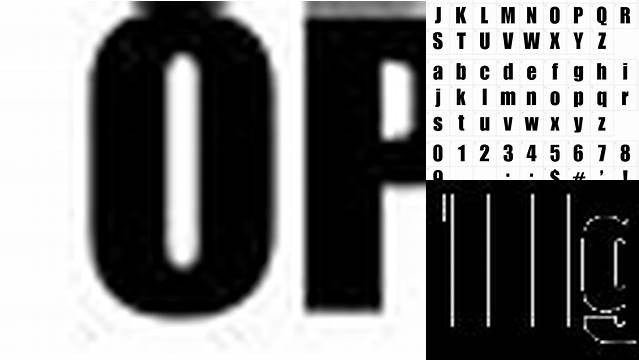
Opti Ignite Font: A Stylish Choice for Your Projects
So, what exactly makes the Opti Ignite font so special? Think sleek, think contemporary, think eye-catching. This font family is designed to make a statement. It's perfect for a variety of projects, from website headers and logos to social media graphics and print materials. Its clean lines and modern aesthetic give it a versatile appeal, making it suitable for both professional and personal use. When you consider the Opti Ignite font free download option, it becomes even more appealing, doesn't it? Getting a high-quality font without spending a dime is always a win. The design of the Opti Ignite font is characterized by its bold, yet refined look. This balance is what allows it to stand out without overwhelming the viewer. Its legibility is another strong point, ensuring that your message is clear and easily understood, even at different sizes. The font is incredibly user-friendly. Whether you're a seasoned designer or just starting out, the Opti Ignite font is easy to integrate into your workflow. With its contemporary design, it can quickly elevate the look and feel of any project. Its popularity stems from its ability to blend modern and classic elements, making it a timeless choice. Furthermore, the free download option makes it accessible to a broader audience, allowing more people to experience its design benefits. Many designers appreciate the font's flexibility and its ability to work well in a wide array of contexts, from corporate branding to creative personal projects. Overall, the Opti Ignite font is a must-have for anyone looking to add a touch of modern elegance to their designs. It's a game-changer, and the free download makes it even better. Believe me, it's the little things that matter.